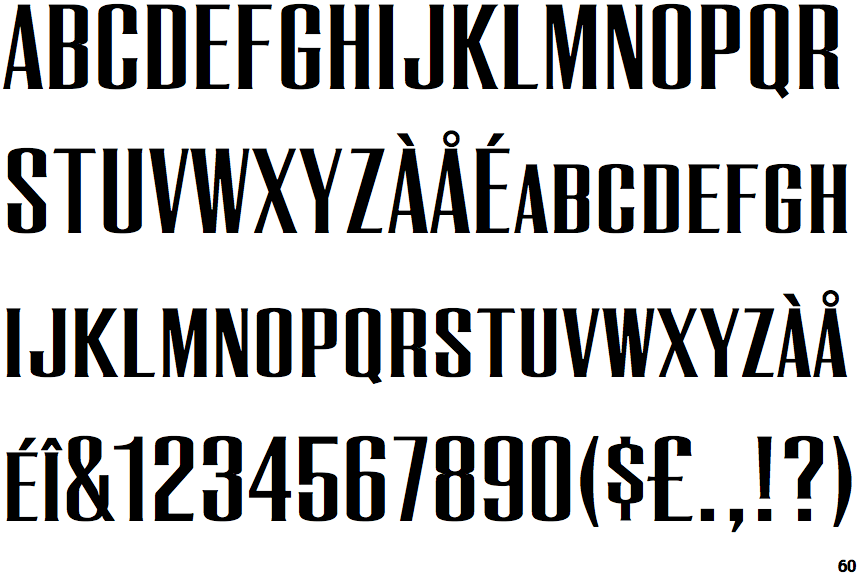
Fonts Similar To Capital
Use the selector above to match other fonts in the family. What fonts are similar to capital poster? These are decorative and have fluid strokes similar to handwriting.
It's Wider Than Impact, But Still Has That Bold, Thick Stroke That Will Certainly Stand Out.
Merova Is A Classical Font That Blends Roman Styling With Belle Epoque Proportions.
Here you will find fonts that look like capital. Fonts similar to 'capital poster': Not all fonts have stylistic alternatives, but ones that do will list them as “stylistic sets” if you scroll down through the menu.
All Caps Fonts Contain All Capital Letters, Whether You Type In The Lowercase Or Uppercase Alphabet.